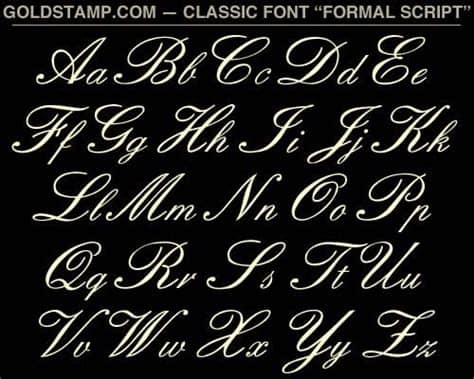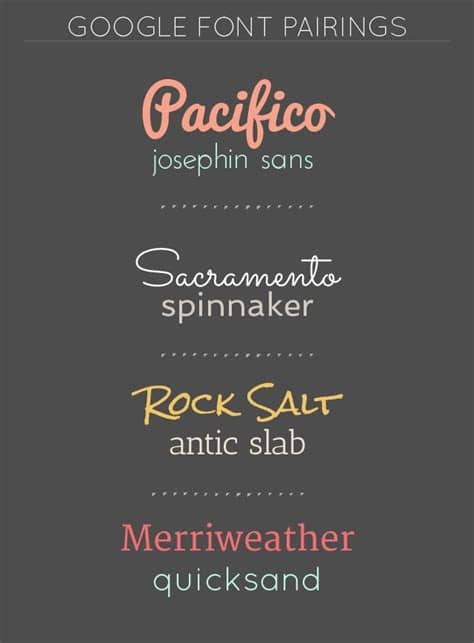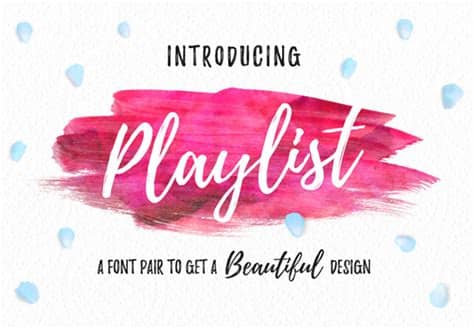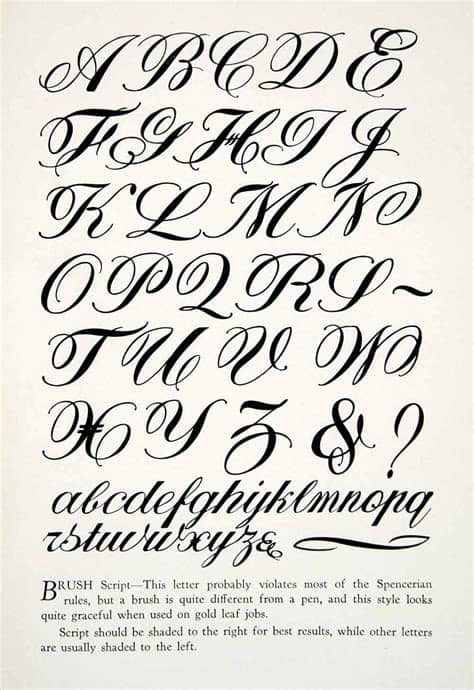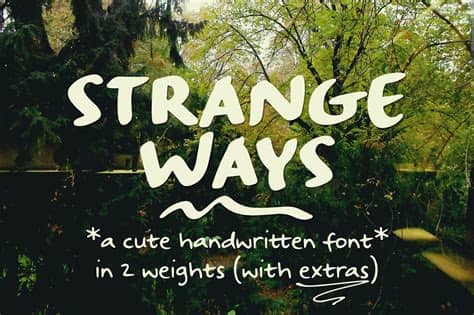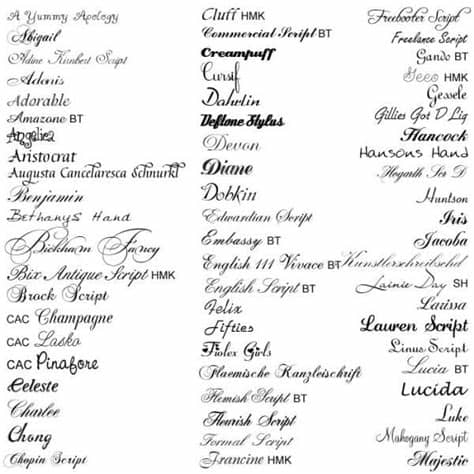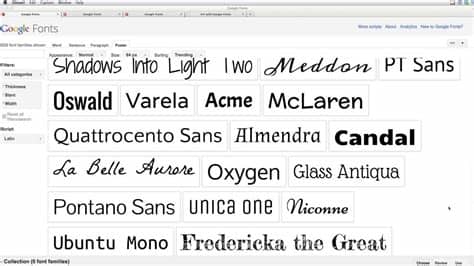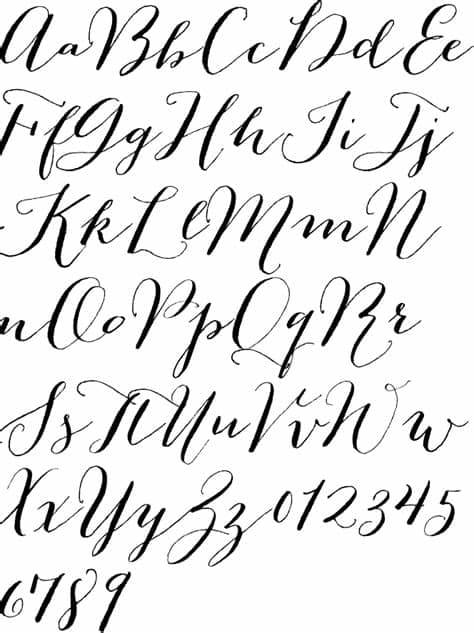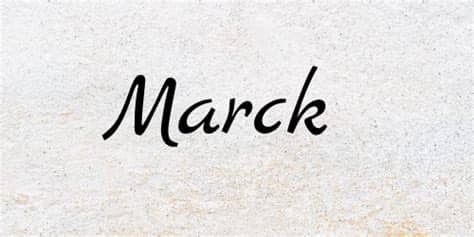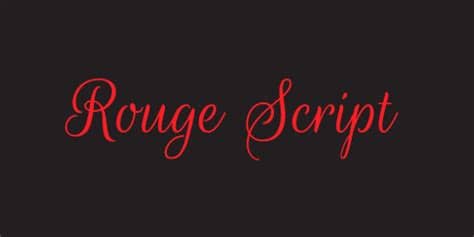
Sample Of Google Script Fonts - Shorelines Script Bold Font | UrbanFonts.com / Looking for google font examples?. What's your favorite font at google fonts? Some scripts are more formal like elegant calligraphy, while others are casual like cursive handwriting. Each font family directory contains the appropriate license file for the fonts in that directory. Created by ibm brand experience & design. Useful for example when project must to be ran in network without connection with internet or when you make application based on projects like electron.
Make it easy on yourself to choose there are literally hundreds of google fonts.
Script font is a broad style that refers to any typeface that looks like it was drawn by hand.
Archive of freely downloadable fonts. Google fonts open source font attribution. Through url parameters, you specificity which fonts you want, and what another caveat of the fontloader script is that it takes a few seconds for the font to load. How to use google fonts. I have tried the instructions it provides on the google api pages but it always defaults to the default font.
Contribute to google/fonts development by creating an account on github. The fonts files themselves also contain licensing and authorship metadata. A good script font is hard to find. Google font is awesome and used by millions of websites on the web every day. Useful for example when project must to be ran in network without connection with internet or when you make application based on projects like electron. Google design is a cooperative effort led by a group of designers, writers, and developers at google. What's your favorite font at google fonts? Each font family directory contains the appropriate license file for the fonts in that directory.
Contribute to google/fonts development by creating an account on github.
Licensed for personal and commercial use. A good script font is hard to find. Google design is a cooperative effort led by a group of designers, writers, and developers at google. Useful for example when project must to be ran in network without connection with internet or when you make application based on projects like electron. Script downloading css file with fonts and adapt it to working in closed environment/offline. The provided zip file downloads contain the latest the files come from the google fonts repository on github—i regularly check the commits on github to make clicking any of the font names above (or image samples) will take you. Just add a special style sheet link in the <head> section and then refer to the font in the css. Google fonts are free to use, and have more than 1000 fonts to choose from. Created by ibm brand experience & design. How to use google fonts. What's your favorite font at google fonts? Best script fonts google web font handwriting fonts types of handwriting handwritten calligraphy fonts hand drawn type. Other post seem to have been idle for a while and i thought someone might have figured out a way to pull it off.